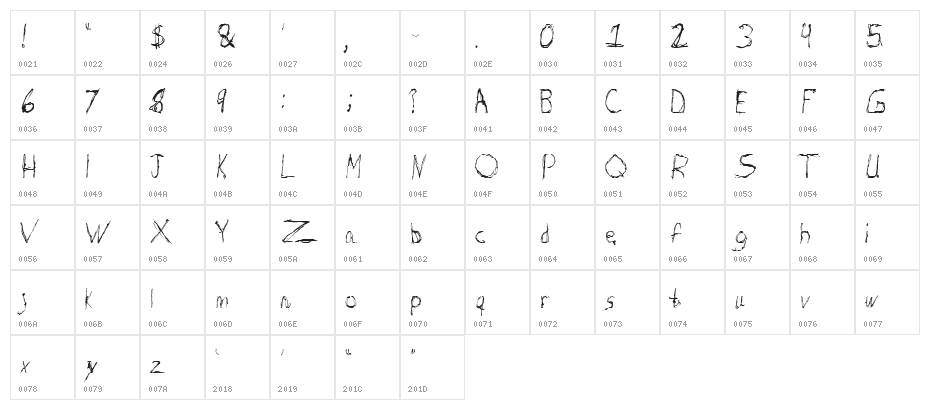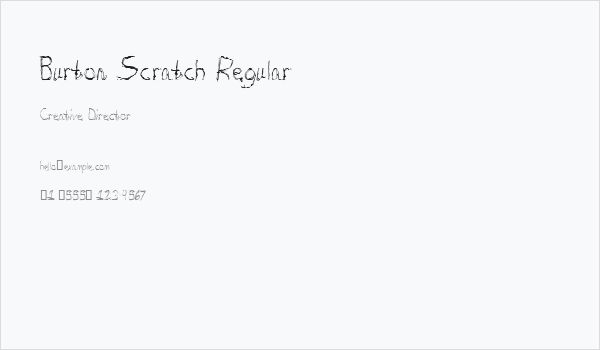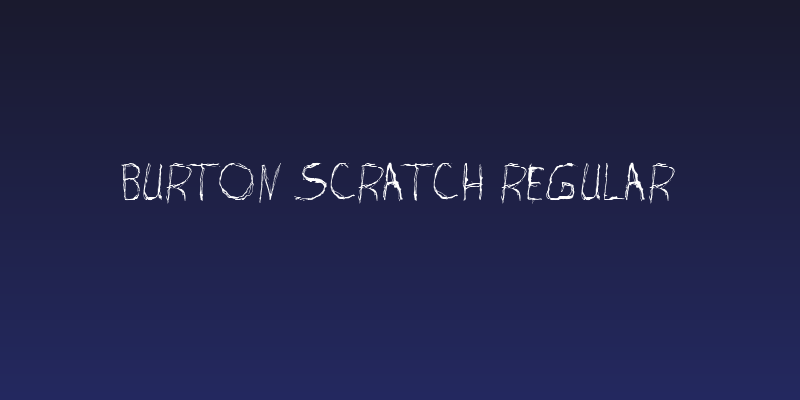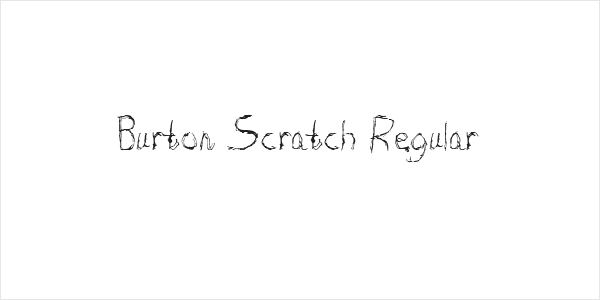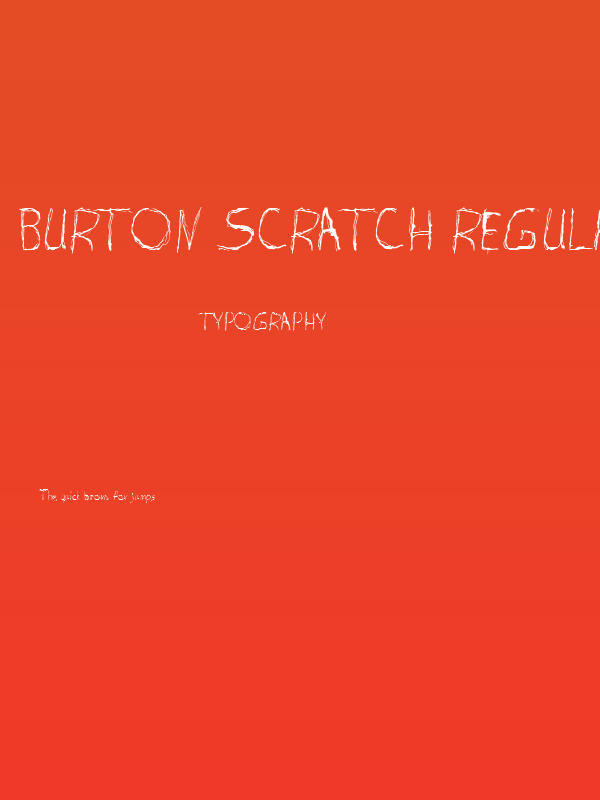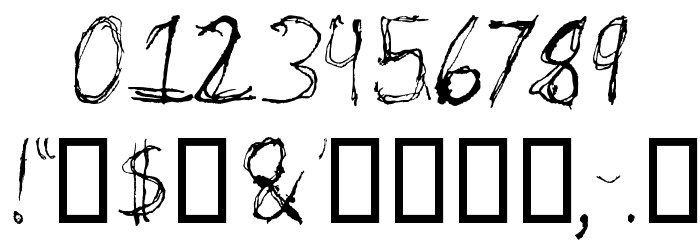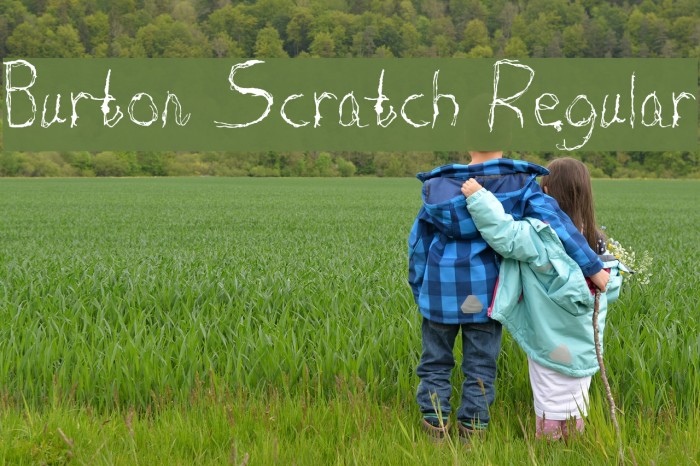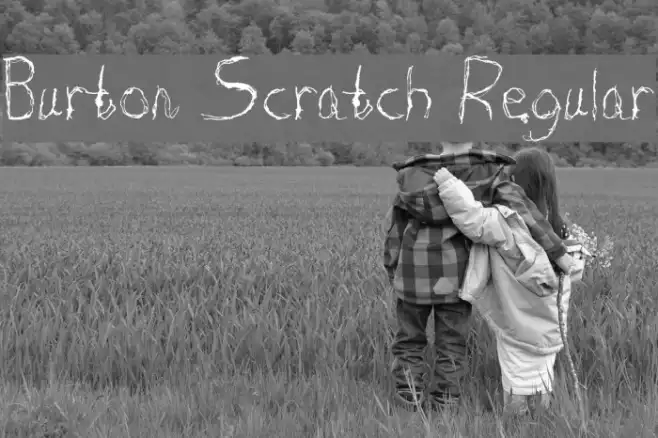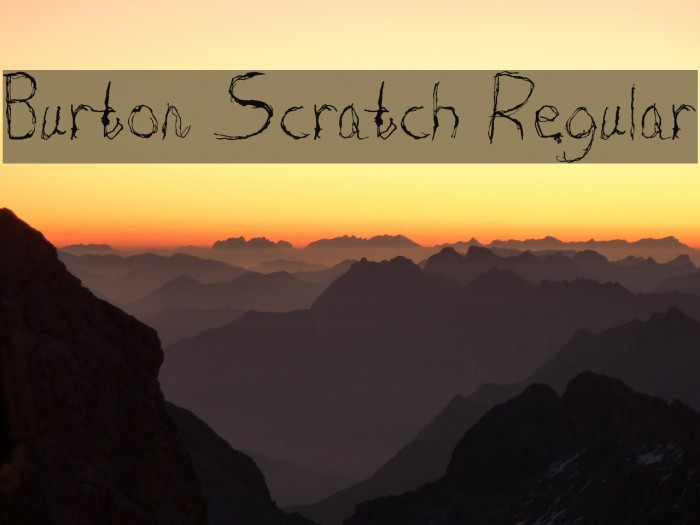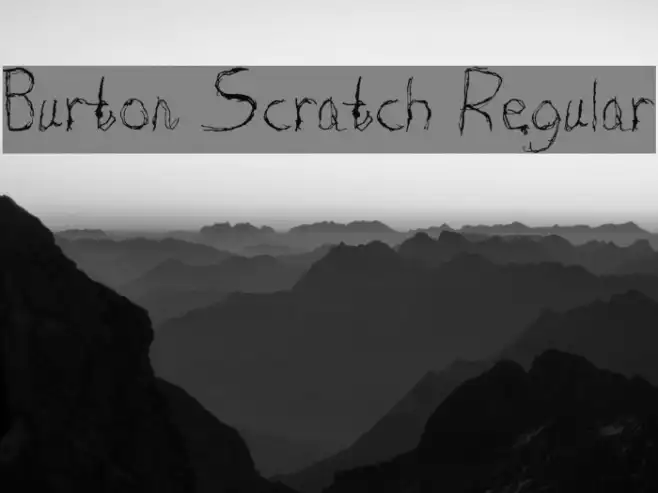
Burton Scratch Regular Font
Burton Scratch Regular Description
This font features a unique, hand-drawn style with a scratchy, textured appearance. The letters have an irregular, organic form, giving them a raw and edgy look. The strokes vary in thickness, creating a dynamic and lively effect. The overall appearance is reminiscent of graffiti or distressed handwriting, making it ideal for projects that require a bold, unconventional aesthetic. The font includes both uppercase and lowercase letters, numbers, and a selection of special characters, all maintaining the same distinctive style.
| Use Case | Headlines, Logos, Artistic projects |
| Proposed Projects | Ideal for album covers, horror movie posters, edgy branding, and artistic projects requiring a bold statement. |